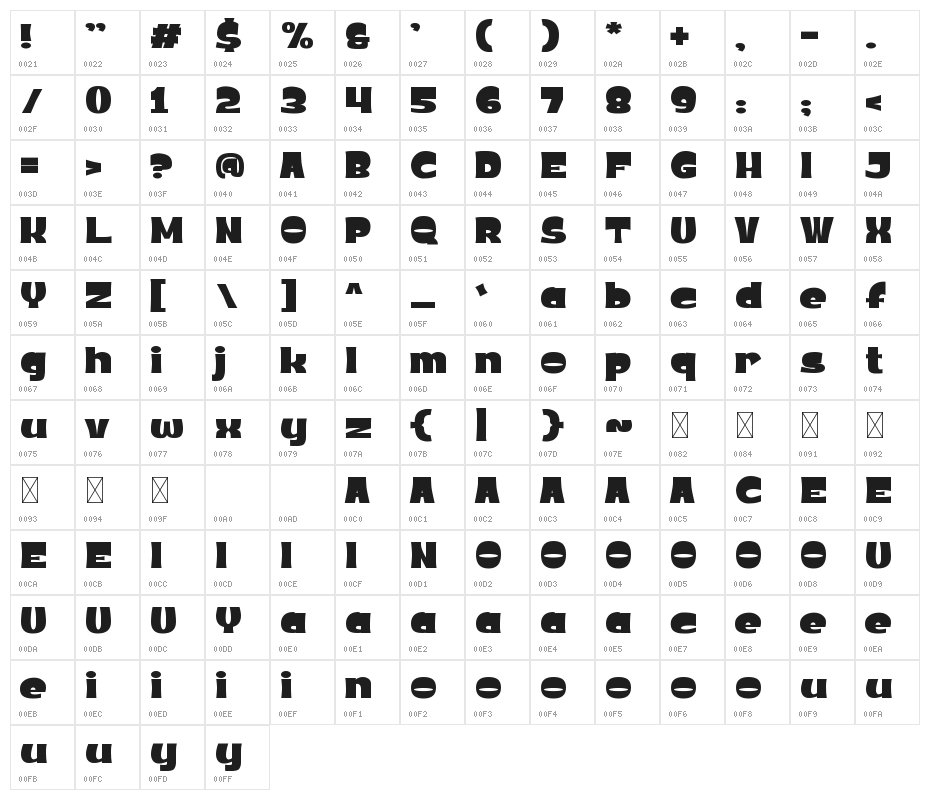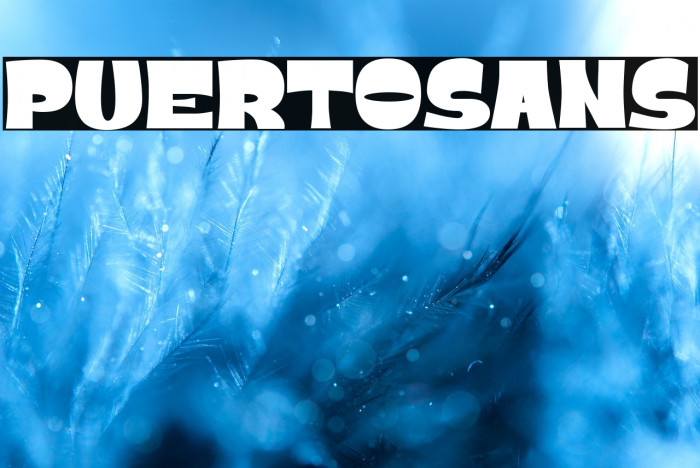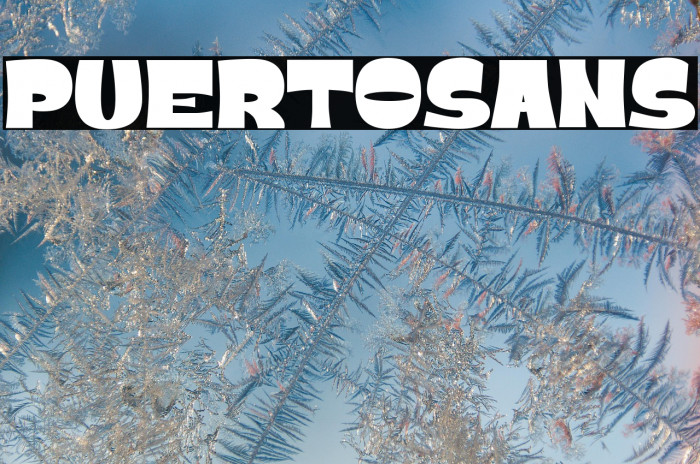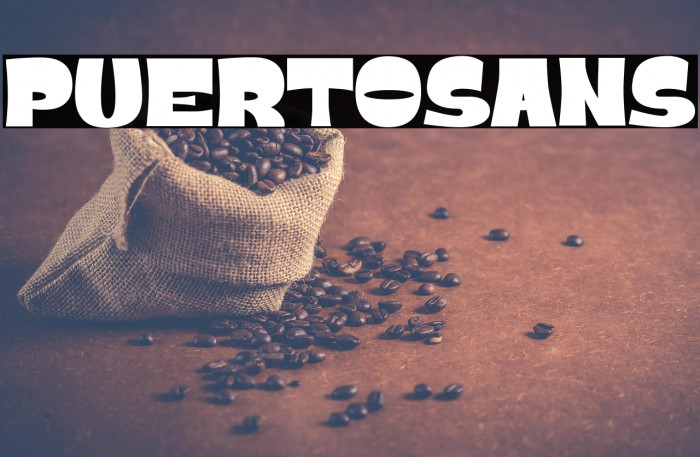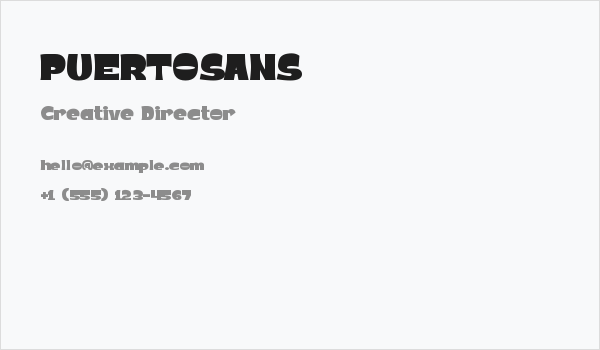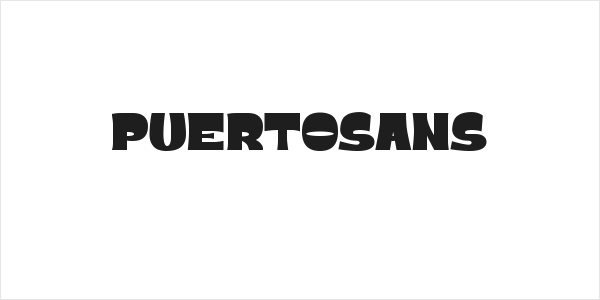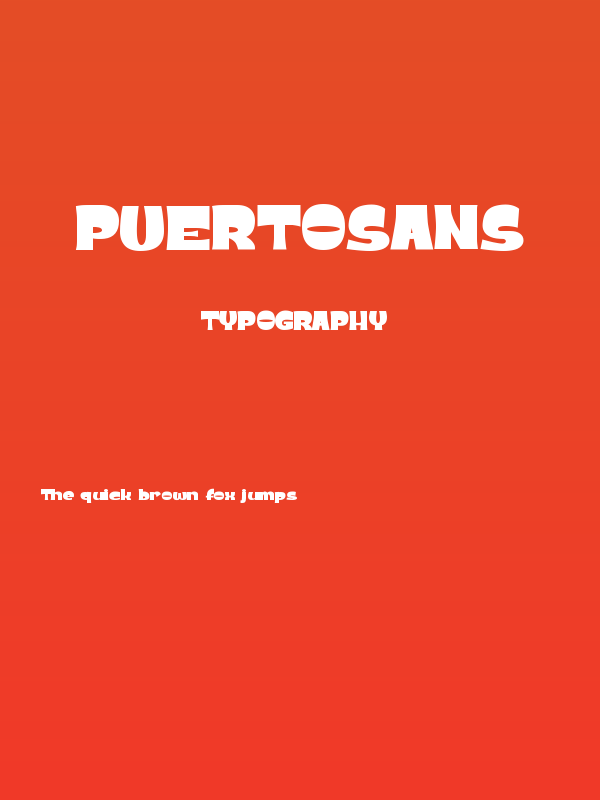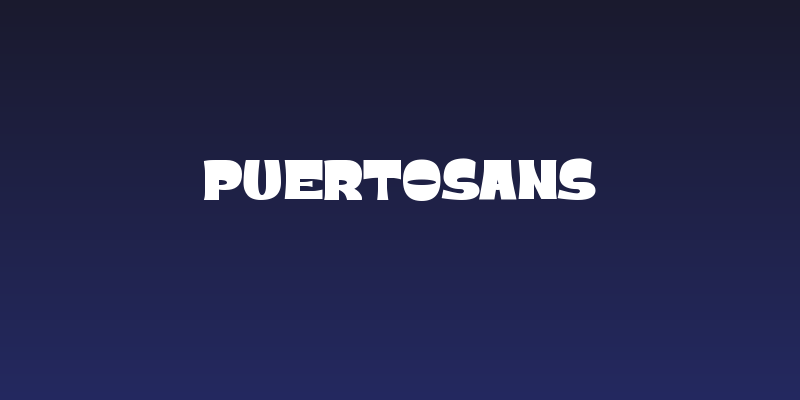
PUERTOSANS Font
PUERTOSANS Description
This font features a bold and striking design with a strong presence. The characters are wide and have a unique, playful style that combines elements of both modern and retro aesthetics. The uppercase letters are particularly bold, with a heavy weight that makes them stand out prominently. The lowercase letters maintain the same boldness but with a slightly softer edge, adding a touch of approachability. Numbers and special characters follow the same design principles, ensuring consistency throughout. This font's distinctive style makes it ideal for creative and eye-catching designs.
| Overall Style | Modern, Retro |
| Proposed Projects | Ideal for posters, branding, headlines, and any project requiring a bold, eye-catching typeface. |